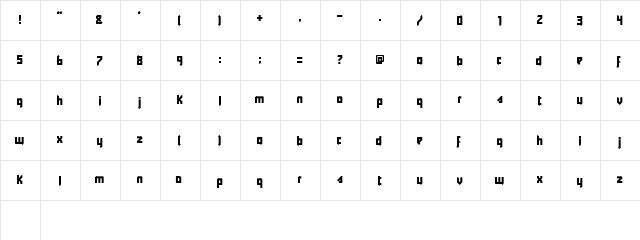
Y2K Friendly Future Regular
Design Context for Y2K Friendly Future Typeface
Y2K Friendly Future has a distinctly futuristic character, with geometric precision and clean angles that feel at home in technology, gaming, and sci-fi contexts.
Pro Tip: Use Y2K Friendly Future in combination with a neutral sans for body text. Let it define the brand voice in headlines while keeping reading comfortable elsewhere.